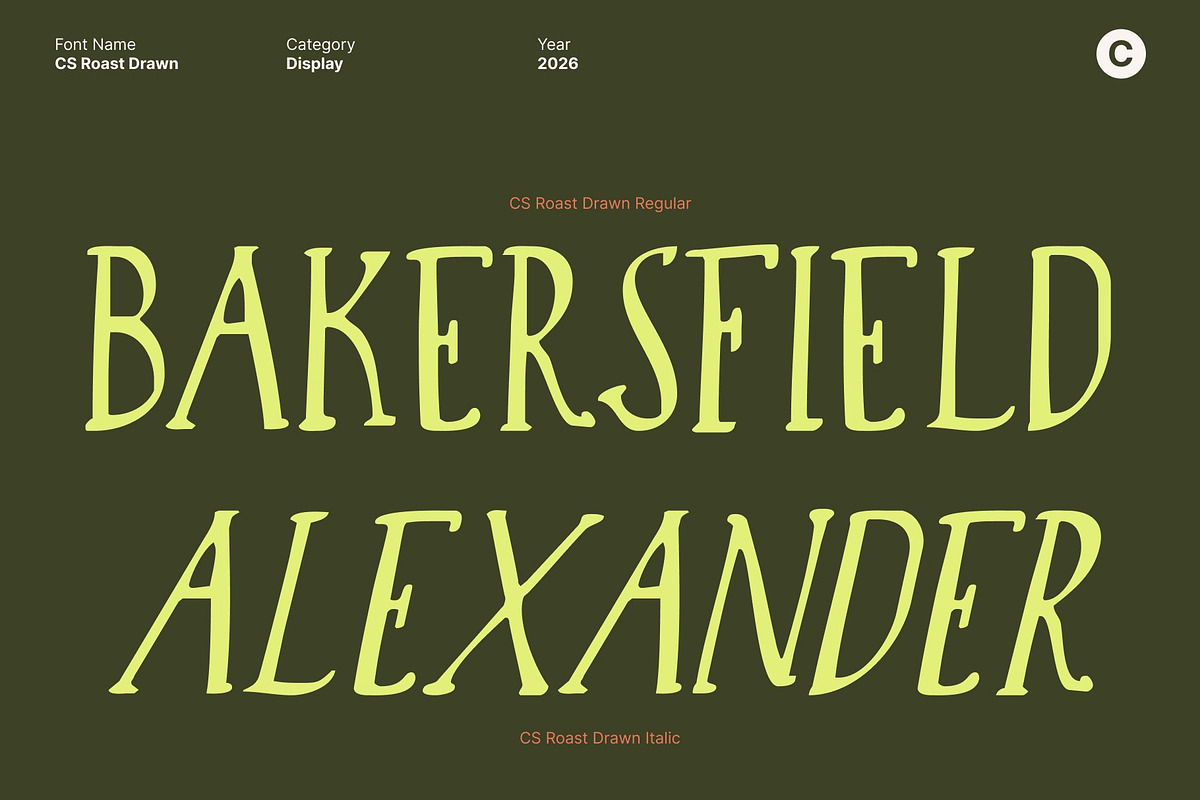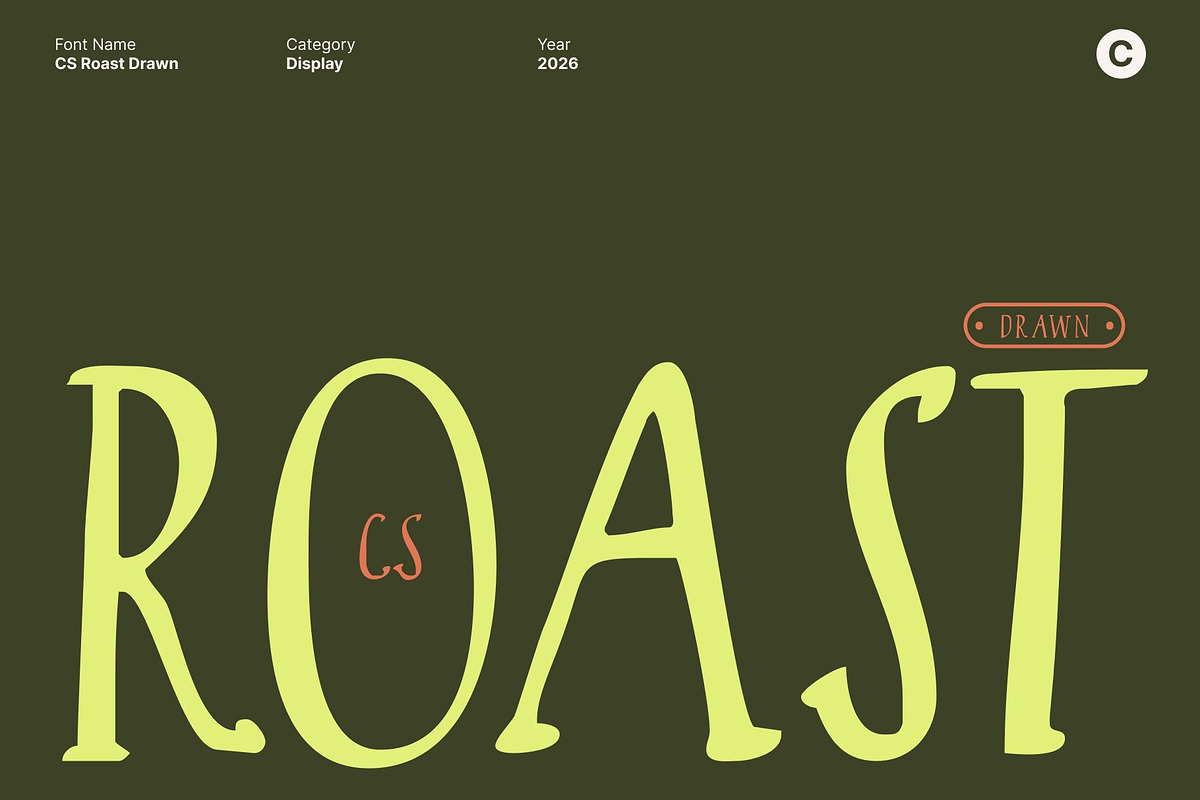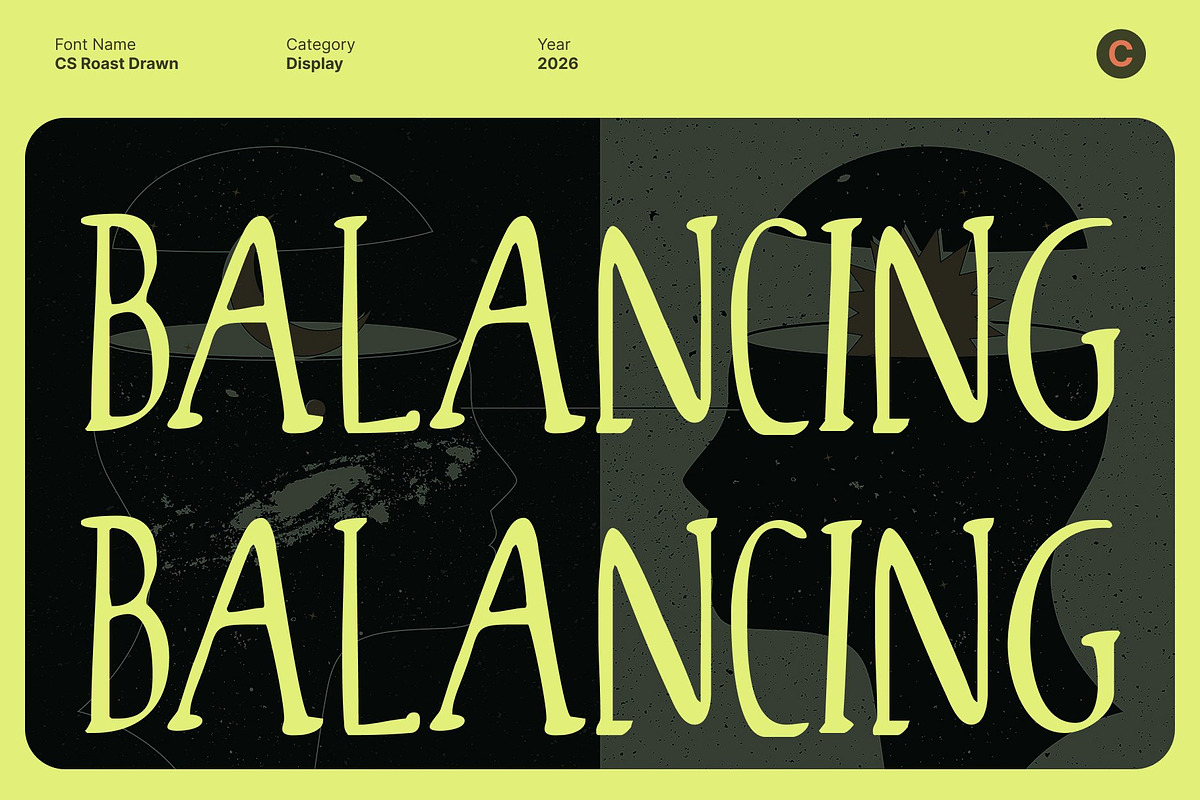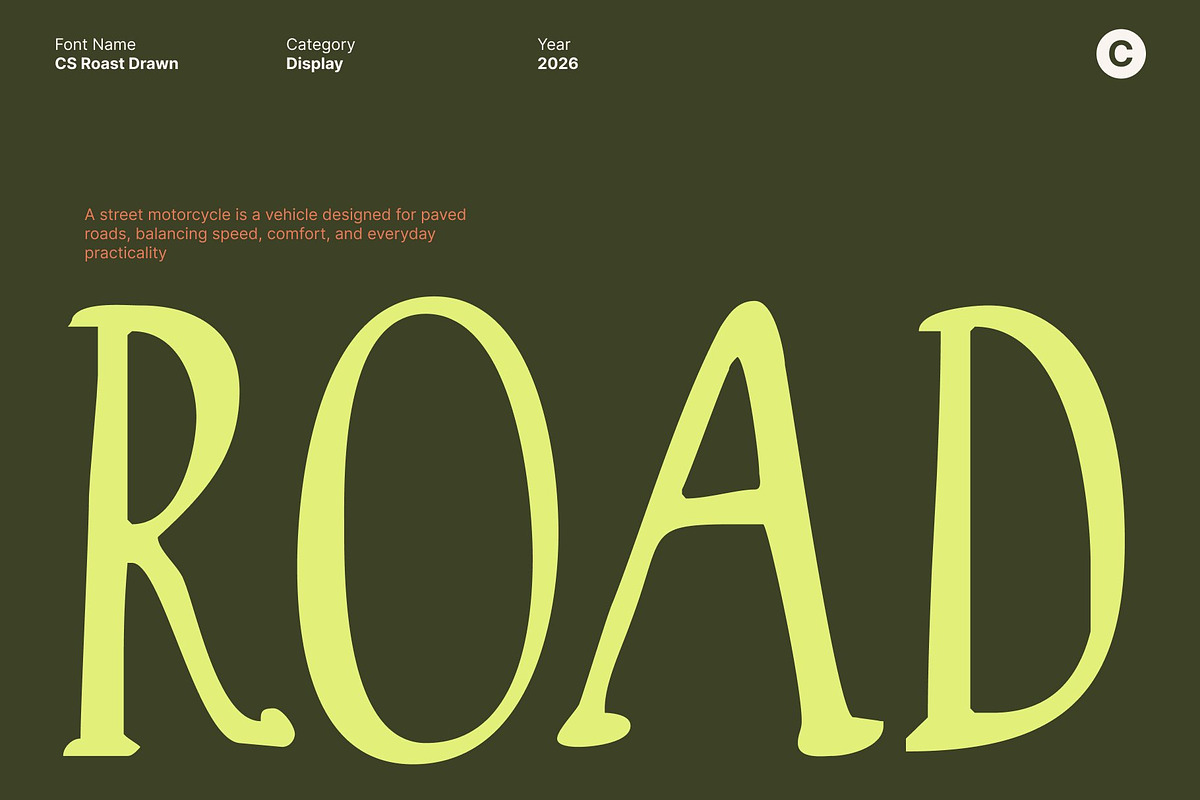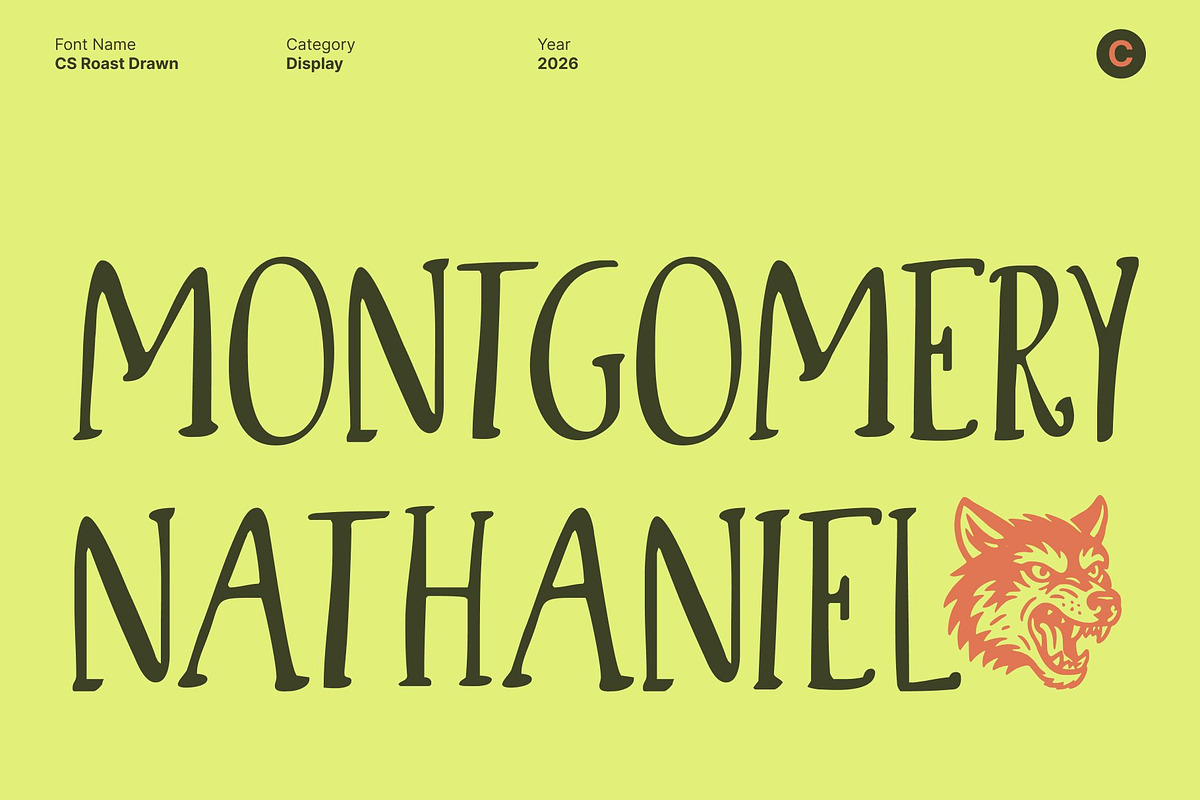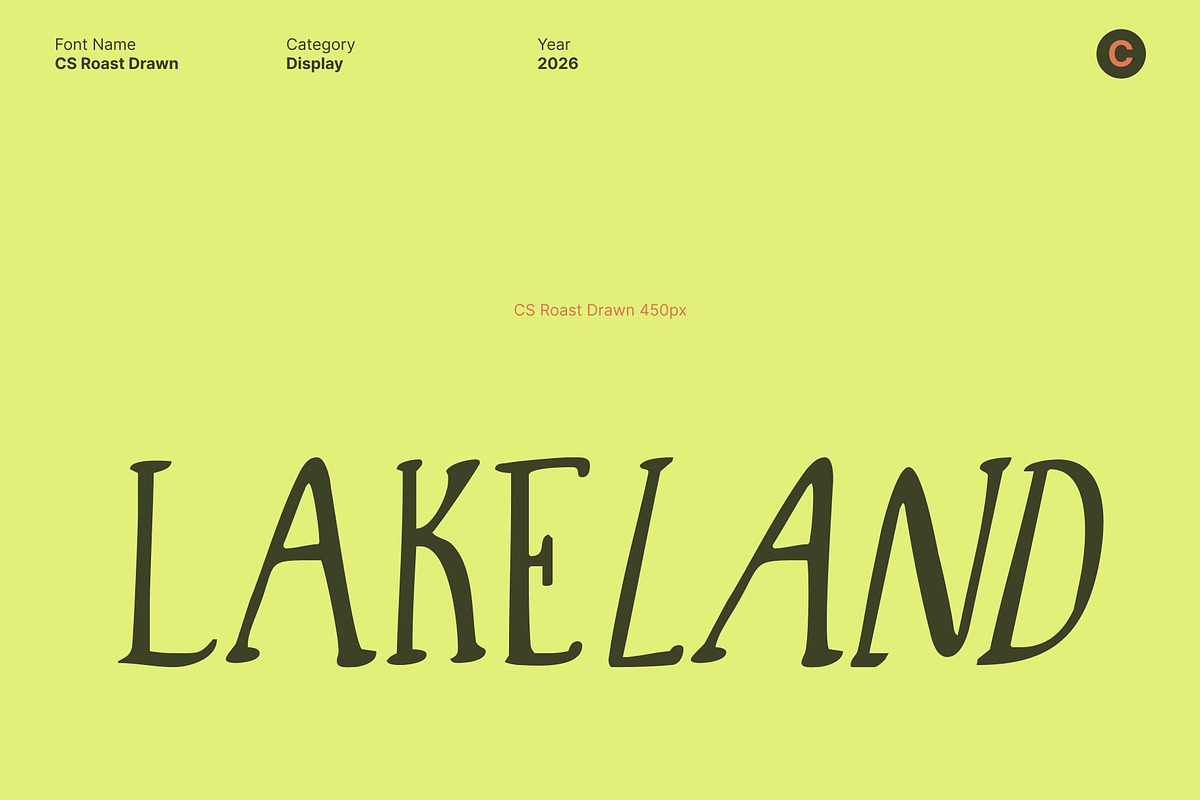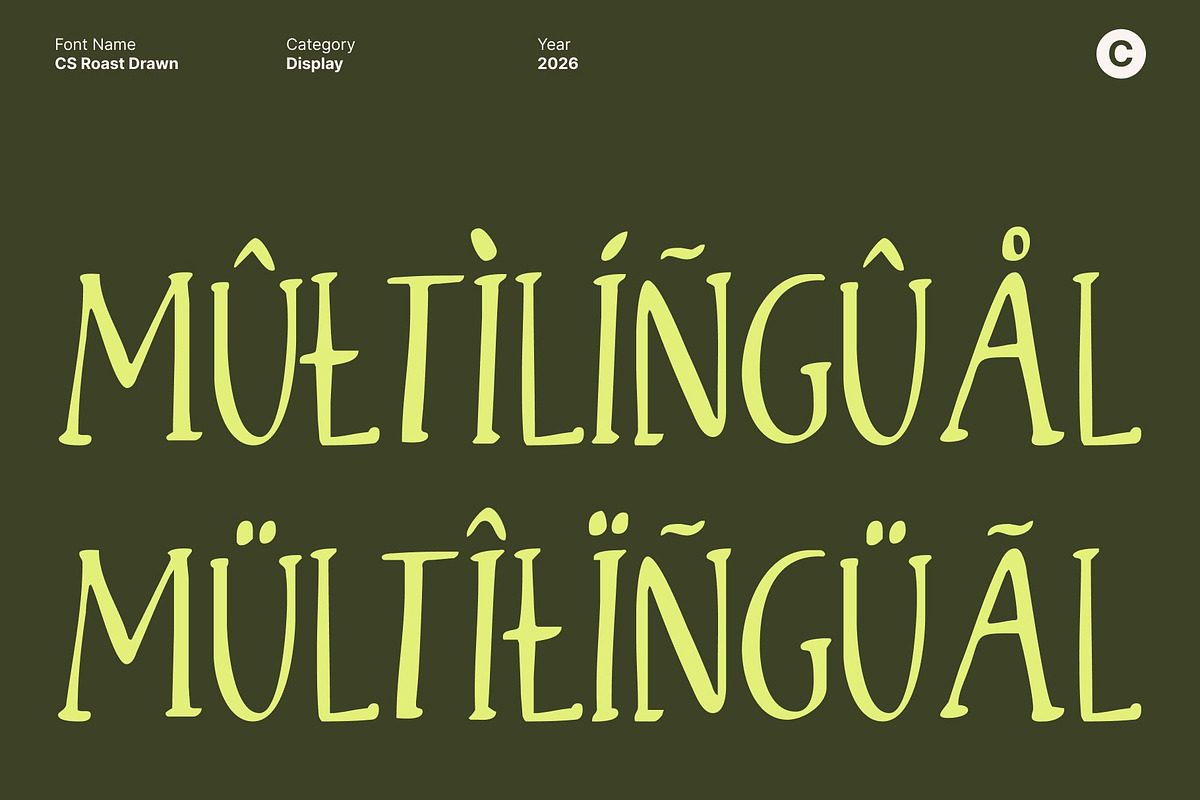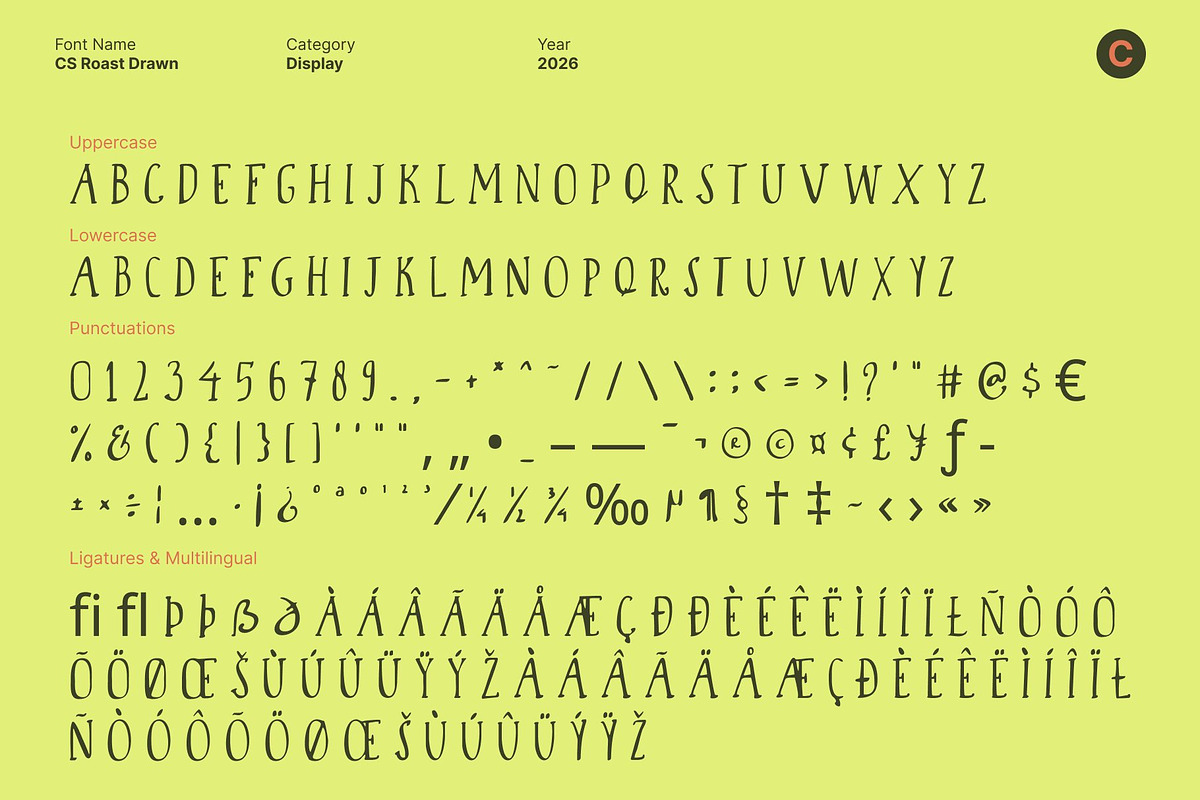
CS Roast Drawn
CS Roast Drawn – Whimsical Handwritten Storybook Font
Whimsical Handwritten Font for Storytelling Designs This is a storybook handwritten display font that captures the magic of imagination and creativity through a charming drawn texture. Inspired by hand-drawn lettering and classic fairytale aesthetics, this font blends curved serif forms with playful decorative details, resulting in an enchanting and expressive typographic style.
Curved Serif Forms with Hand-Drawn Warmth The defining feature of this font lies in its soft, curved serifs and lively rhythm, enhanced by subtle irregular strokes that reflect its handcrafted nature. The drawn effect adds organic character and visual warmth, giving each letter a friendly, personal feel while maintaining clear readability.
Perfect for Playful and Creative Designs Designed for versatility, this font shines in children’s book covers, fantasy posters, playful branding, creative packaging, and imaginative editorial layouts. Its whimsical flow and hand-drawn texture bring charm to headlines and titles, helping designs feel joyful, curious, and full of storybook magic.
A Font That Inspires Imagination This font isn’t just a typeface it’s a creative tool for dreamers and storytellers. Whether you’re designing for young audiences, crafting imaginative logos, or building a fantasy-themed brand, This font adds a special spark of wonder. Let your designs tell their own story with a handwritten font full of warmth, charm, and magical expression.
- CS Roast Drawn Regular
- CS Roast Drawn Italic